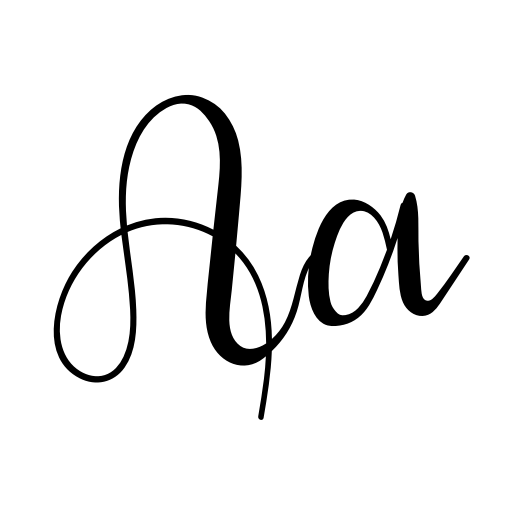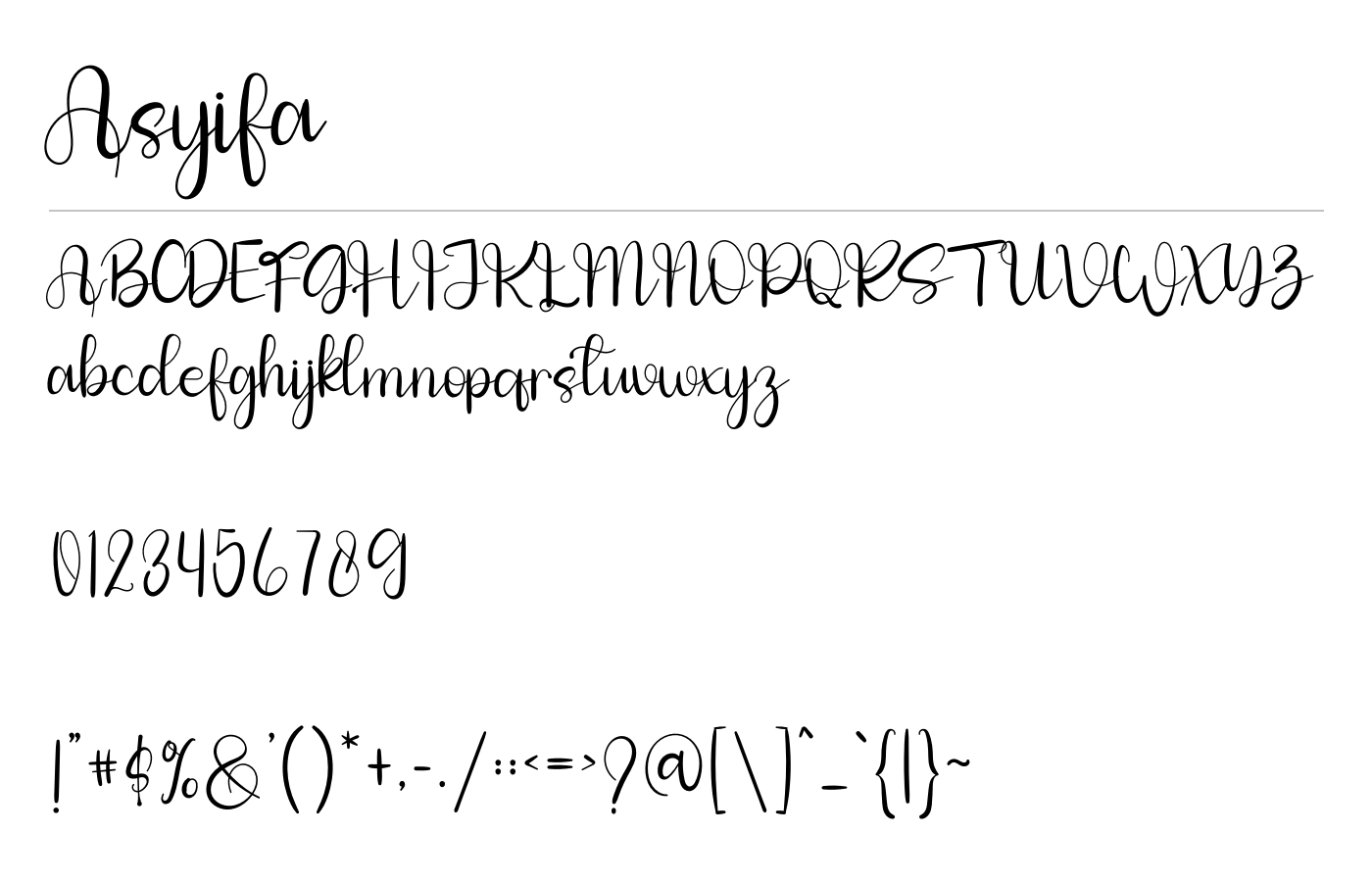
Asyifa is a delicate and playful handwritten script font characterized by its tall, slender letterforms and elegant swashes that add a touch of whimsy and femininity. Its light stroke weight, smooth curves, and airy spacing make it ideal for creative designs that seek a personal and charming feel, such as invitations, branding for beauty or lifestyle products, and expressive headlines. This font works best where a unique, graceful style is desired to convey warmth and creativity.
Asyifa Font
About Asyifa Font